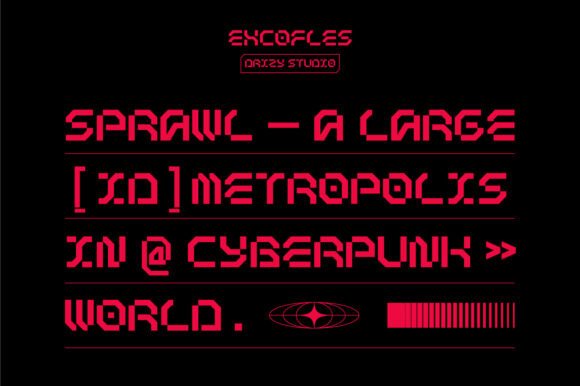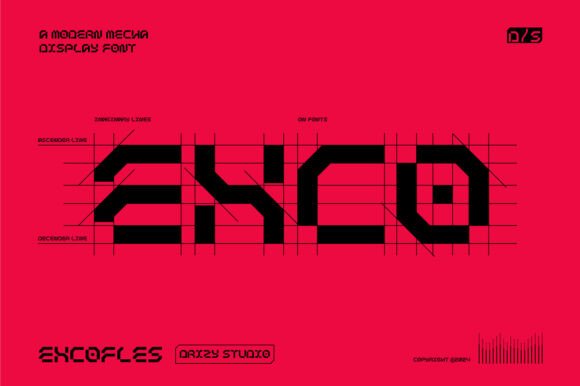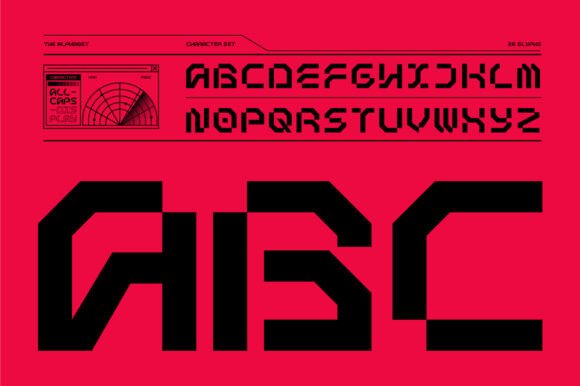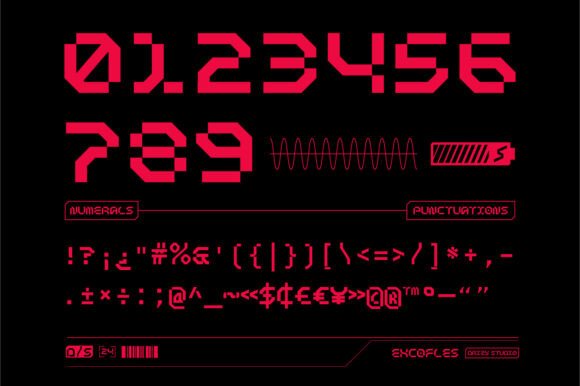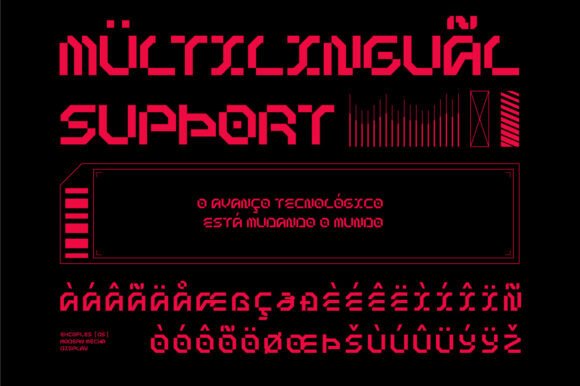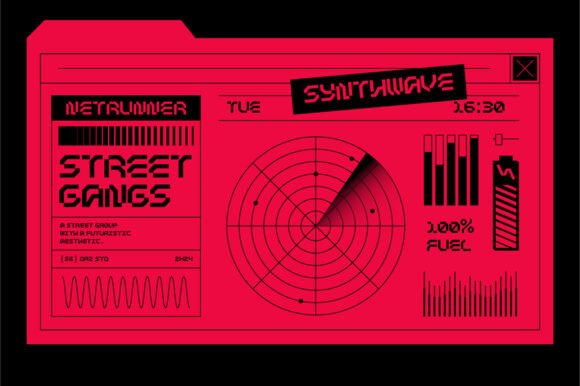
The Ultimate Esports Font: Excofles
I’ll never forget the struggle I faced while working on a project for a gaming client. The brief was simple: create a logo that screams ‘competitive play.’ I scoured the internet for the perfect font, but nothing seemed to capture the energy and intensity I was looking for. That was until I stumbled upon Excofles, a cutting-edge typeface specifically designed for the dynamic world of esports and gaming.
What Makes Excofles Special?
Excofles is a game-changer (pun intended). Its bold, angular strokes and futuristic design make it perfect for logos, branding, and in-game visuals. The sharp edges and sleek geometric forms give it a tech-driven, high-impact aesthetic that resonates with modern gamers and esports design enthusiasts.
- ✨ Bold and eye-catching design
- ✅ Perfect for logos, branding, and in-game visuals
- ⚡️ Sharp edges and sleek geometric forms
- 🎉 Great for creating overlays, team merchandise, or promotional graphics
While Excofles is an amazing font, there are a few things to keep in mind:
- 🤔 Some characters may not work well in smaller font sizes
- ⚠️ Limited support for non-English languages
Excofles was designed with the esports and gaming community in mind. The creator, a passionate gamer and designer, wanted to craft a font that captures the energy and intensity of competitive play. Inspired by the fast-paced world of gaming, Excofles combines bold, angular strokes with sleek geometric forms to create a truly unique typeface.
| Font Name | Excofles Font |
| Author | Drizy Studio |
Q: What is Excofles?
A: Excofles is a cutting-edge typeface designed specifically for the dynamic world of esports and gaming.
Q: What makes Excofles special?
A: Excofles features bold, angular strokes and a futuristic design, making it perfect for logos, branding, and in-game visuals.
Q: Is Excofles available in different languages?
A: Excofles has limited support for non-English languages. Please check the font documentation for more information.